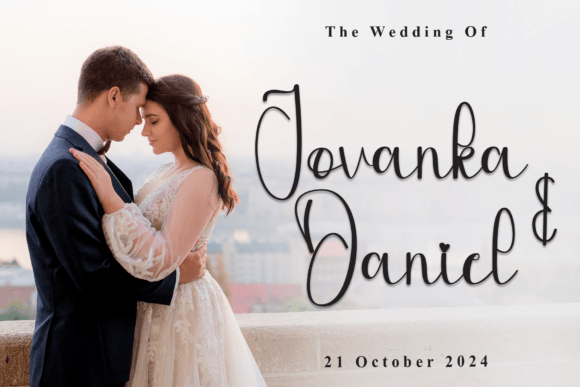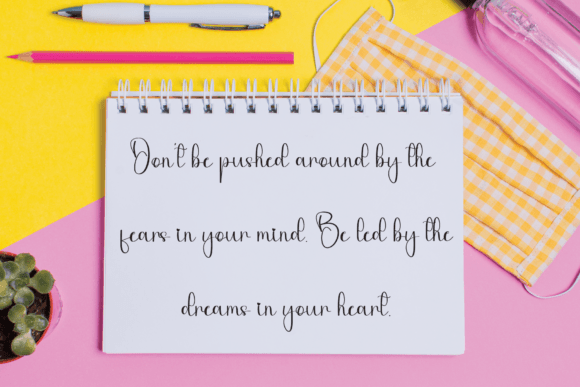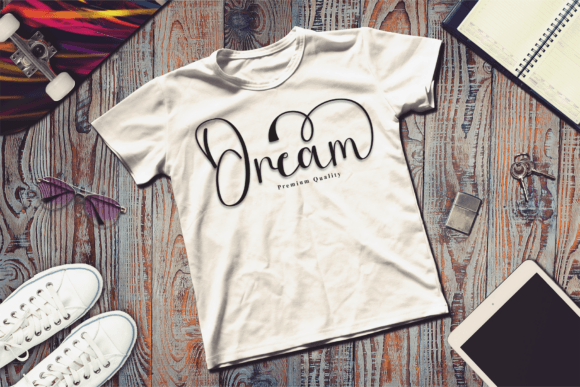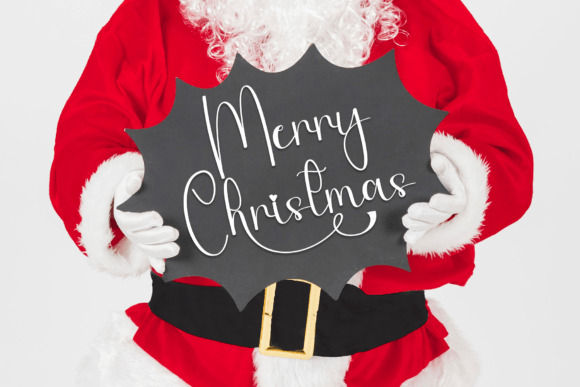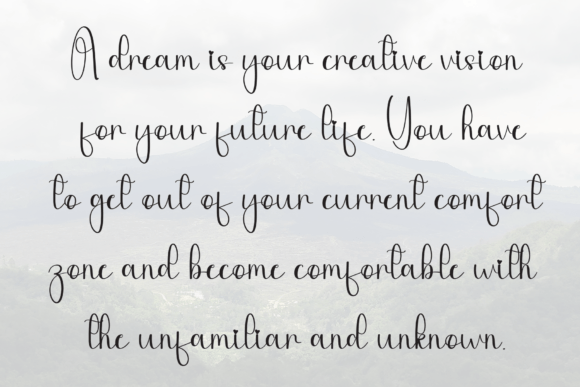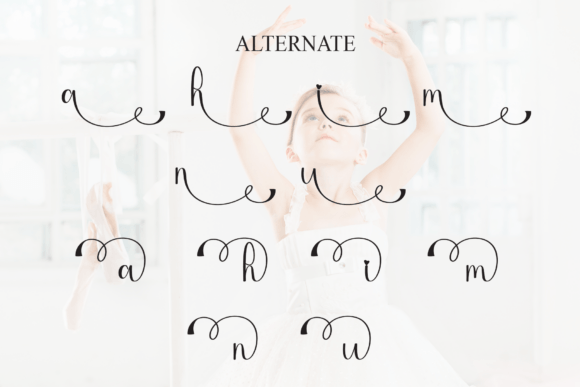
The Joy of Ballerina Font: A Delightful Handwritten Display Font
Have you ever been in the middle of a design project, and suddenly, you’re stuck on finding the perfect font? I recall a particularly frustrating experience while working on a wedding invitation project. My client wanted a font that was both elegant and playful, but I just couldn’t seem to find the right fit. That’s when I stumbled upon the charming Ballerina Font, and it completely transformed my design. In this article, I’ll share my experience with this delightful font, its features, and how to make the most of it in various design platforms.
A Personal Review of Ballerina Font
- ✨ The delightful and cheerful appeal that adds a touch of whimsy to any design
- ✅ A wide range of OpenType features, including stylistic alternates and glyphs, that allow for endless creativity
- 🎉 The font’s versatility, making it perfect for various design projects, from wedding invitations to greeting cards
- 👍 Excellent legibility, even at smaller font sizes
While Ballerina Font is an excellent choice for many design projects, there are a few minor quirks to be aware of:
- ⚠️ Some characters may require manual kerning for optimal spacing
- 🤔 Limited support for non-English languages
The Designer Inspiration Behind Ballerina Font
Ballerina Font was inspired by the joy and elegance of ballet. The font’s creator, a passionate typographer, wanted to capture the lightheartedness and playfulness of this beautiful art form. With its delightful and cheerful appeal, Ballerina Font is perfect for designers who want to add a touch of whimsy to their designs.
Q: What is Ballerina Font?
A: Ballerina Font is a charming and amiable handwritten display font perfect for expressing your creativity.
Q: What design projects is Ballerina Font suitable for?
A: Ballerina Font is perfect for various design projects, including wedding invitations, greeting cards, posters, and social media graphics.
Q: Does Ballerina Font support OpenType features?
A: Yes, Ballerina Font supports OpenType features, including stylistic alternates and glyphs.